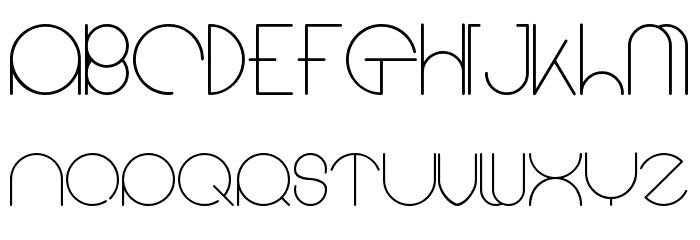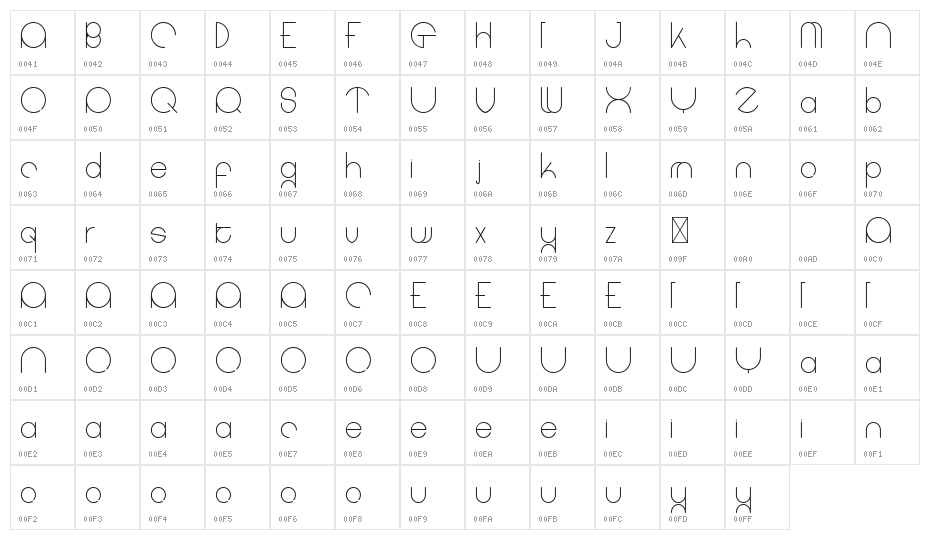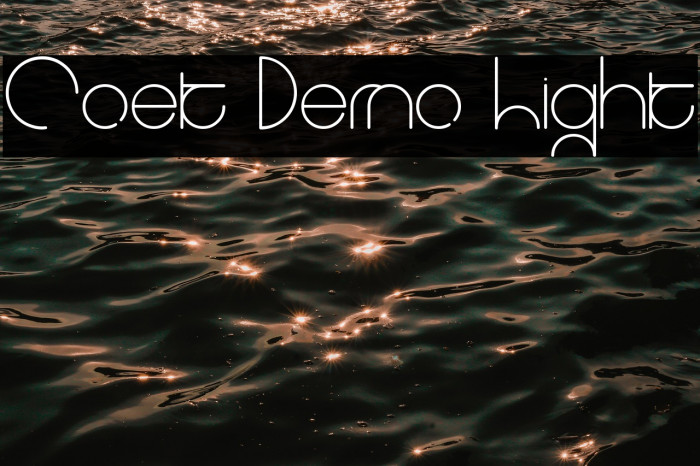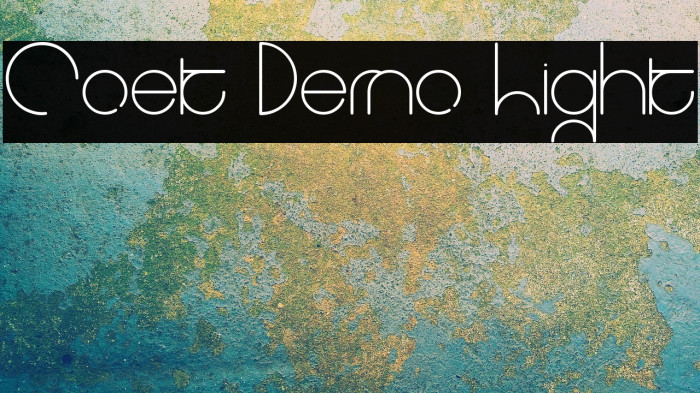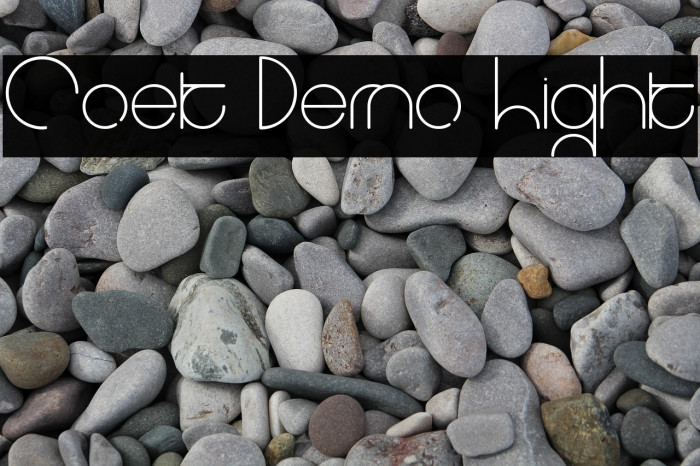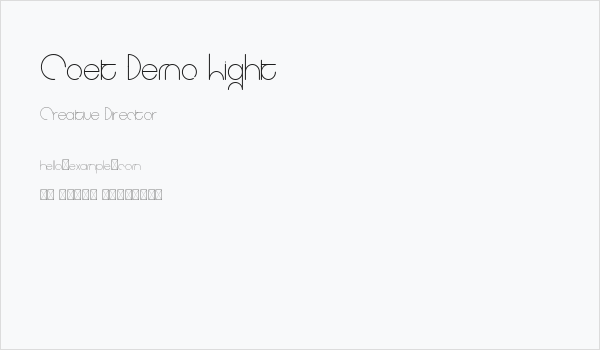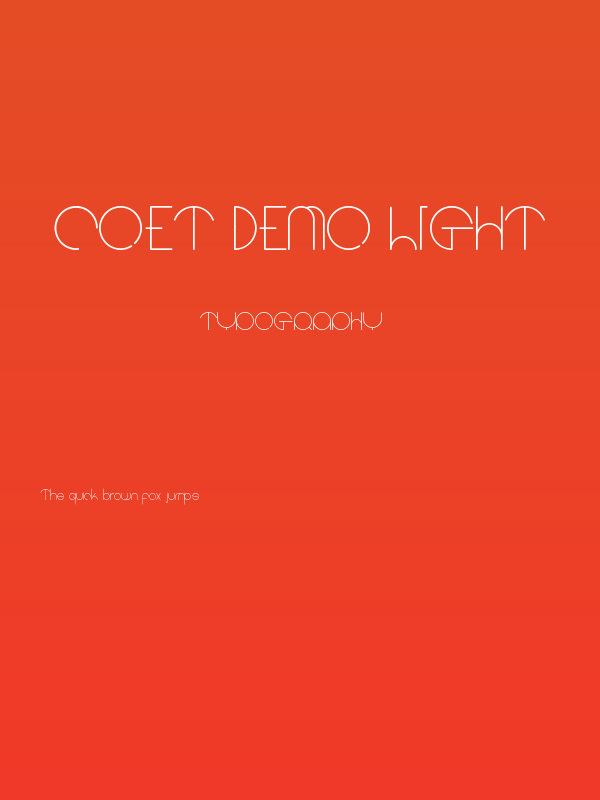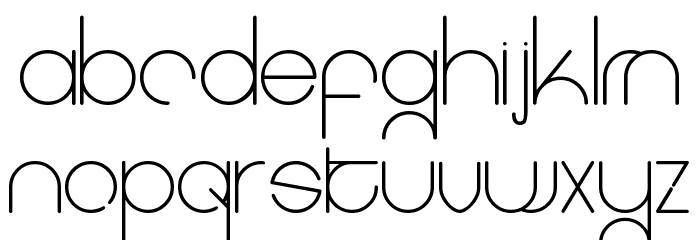
Coet Demo Light Font
Coet Demo Light Description
This font features a sleek and modern design with thin, elongated strokes that create an airy and elegant appearance. The characters are composed of smooth curves and straight lines, giving it a futuristic and minimalistic feel. The uppercase and lowercase letters maintain a consistent style, with rounded edges and a geometric structure. The numerals and special characters follow the same design principles, ensuring uniformity across all elements. This font's light weight and open character spacing contribute to its readability and stylish aesthetic.
| Proposed Projects | Ideal for branding, fashion magazines, modern websites, and minimalist design projects. |